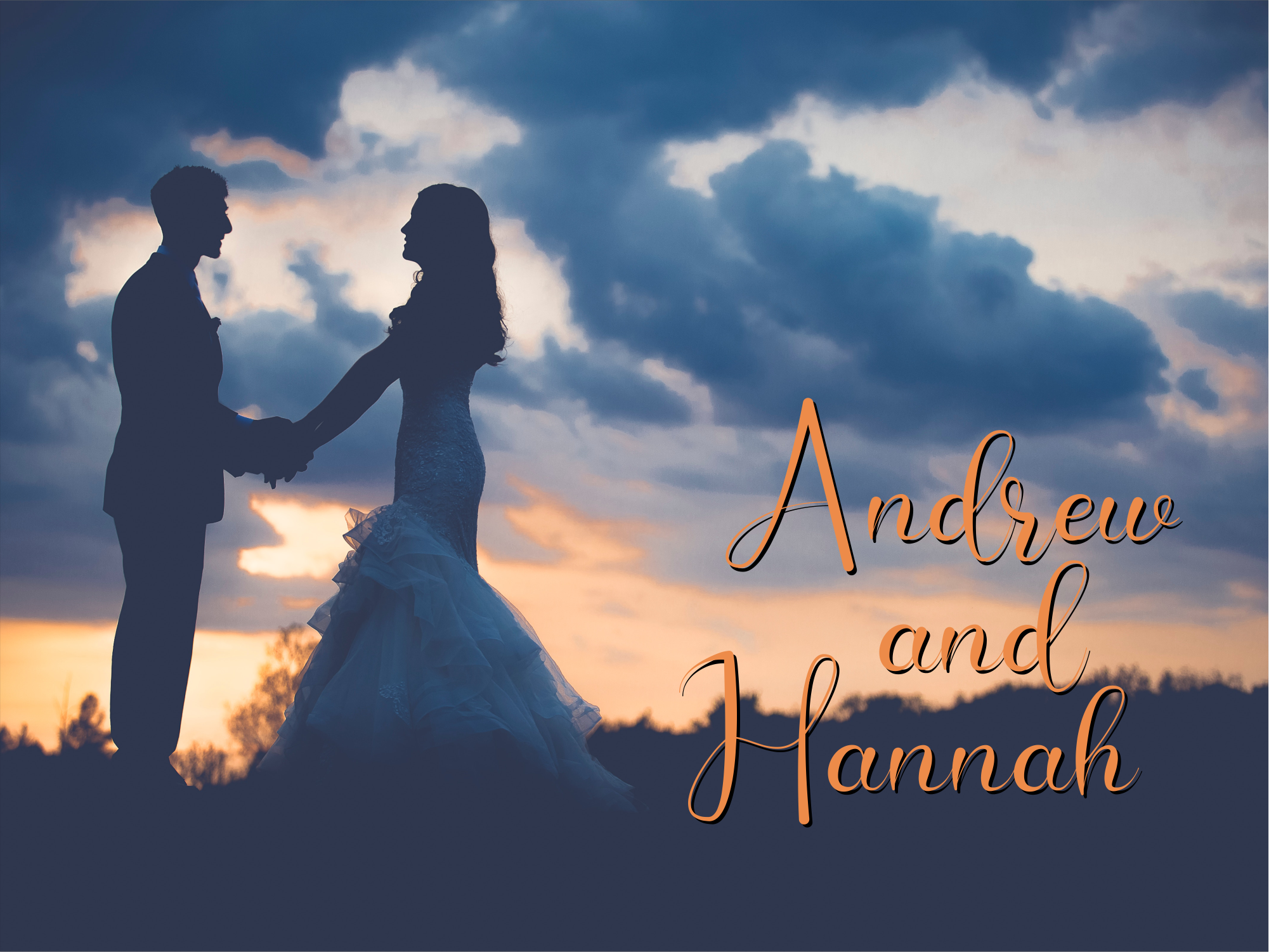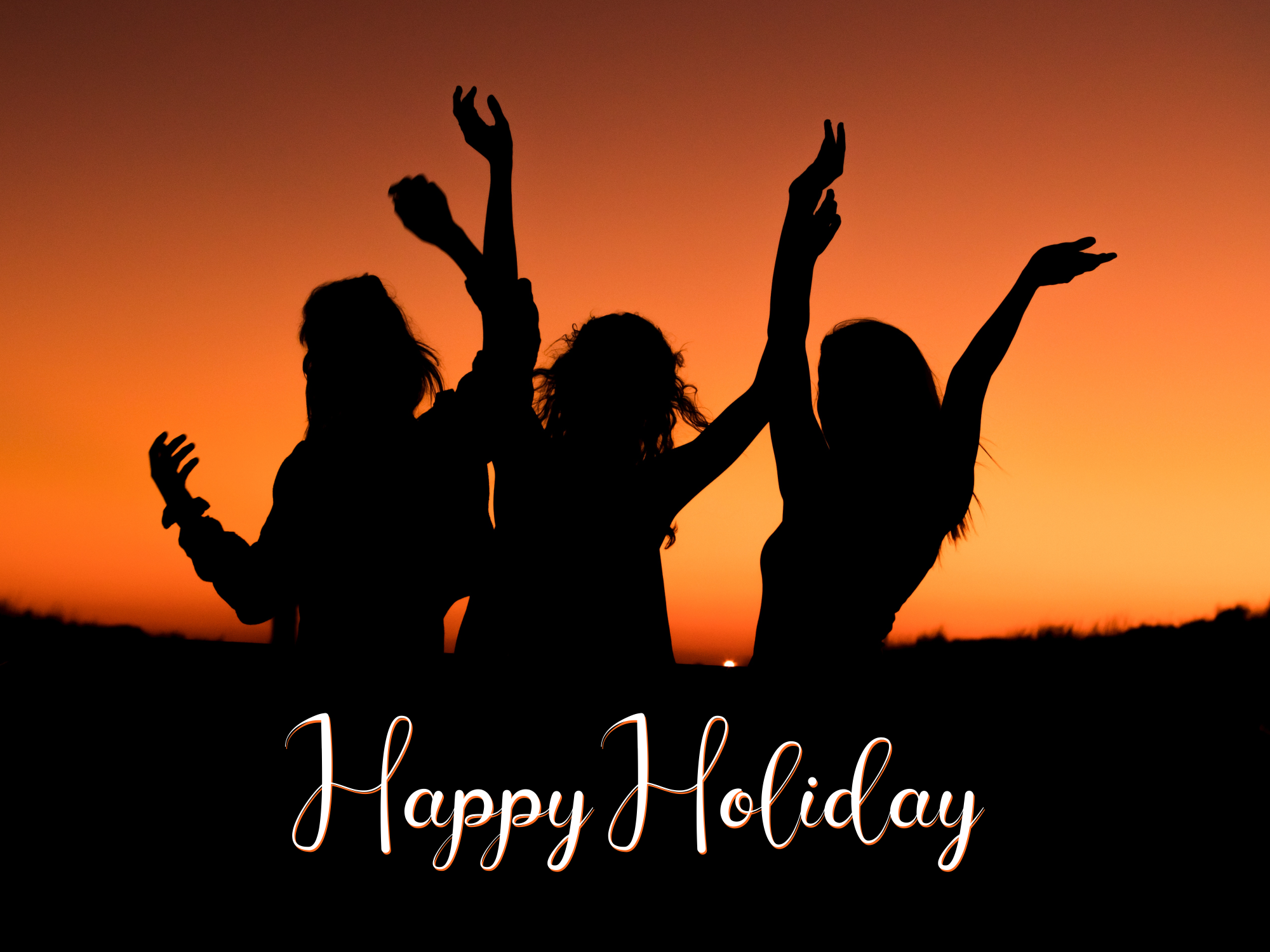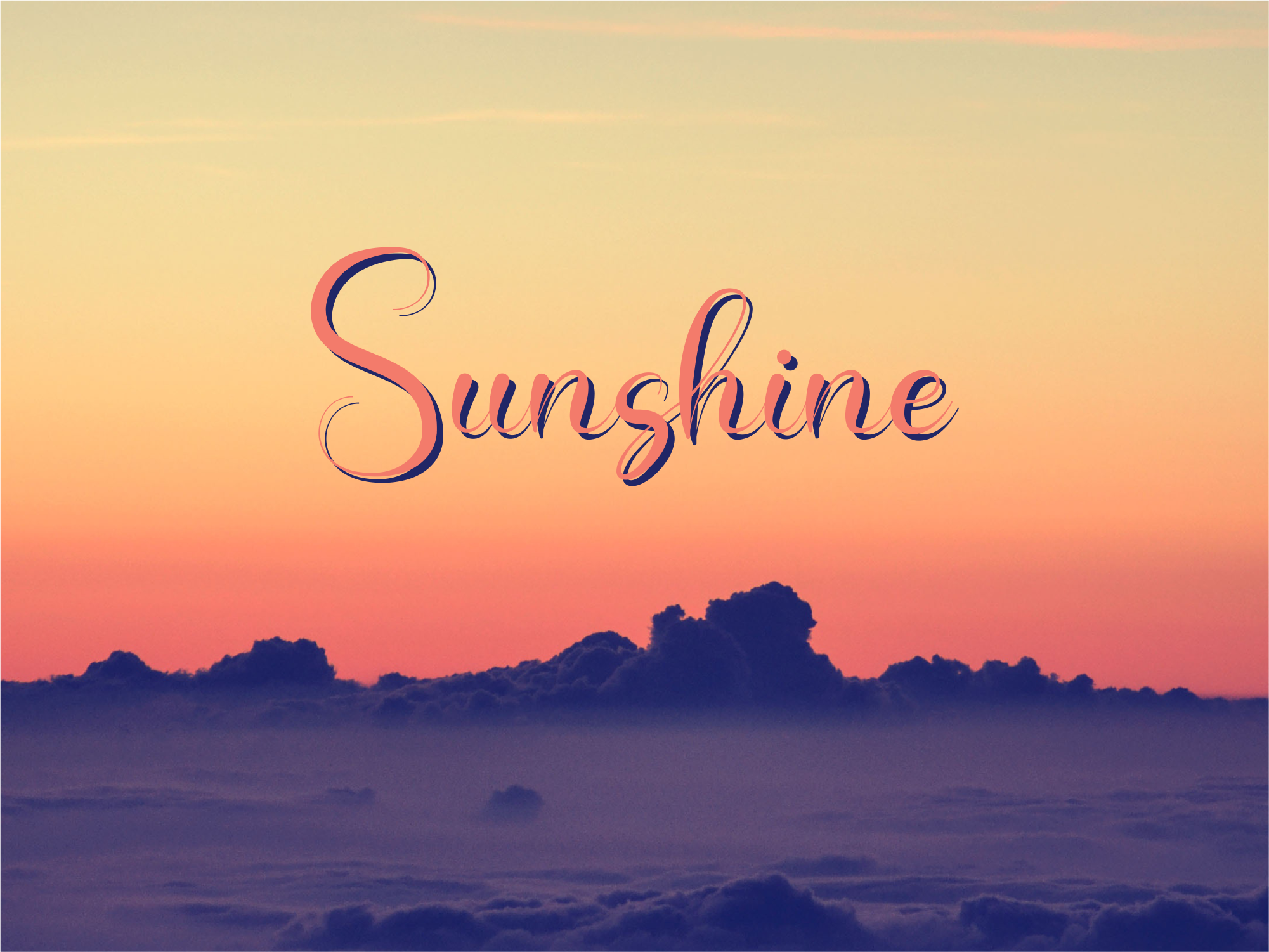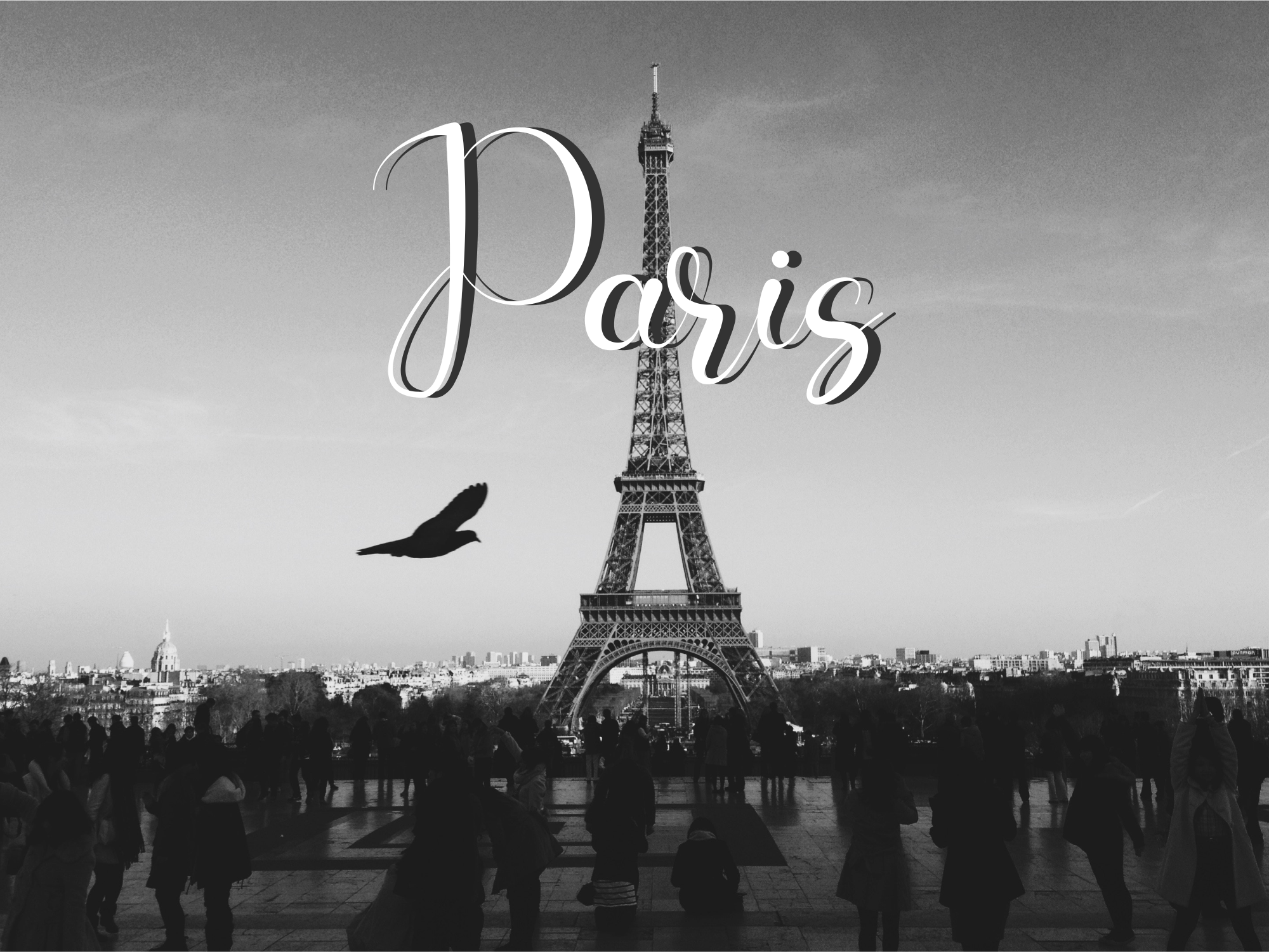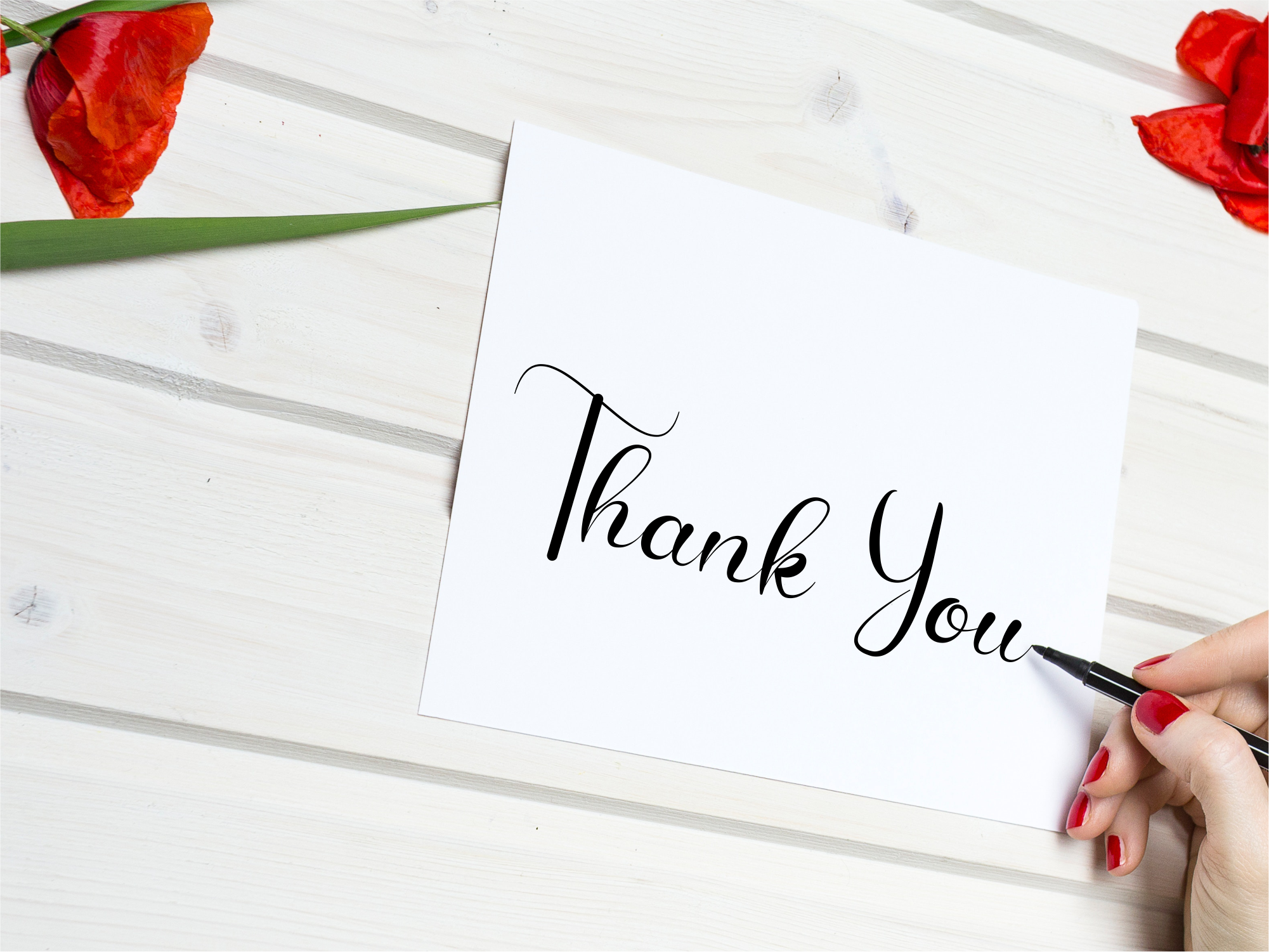
Introduction to Chelosia Font
Chelosia is a stunning script font, handwritten to give your designs an approachable yet romantic sensibility.
This font is beautiful and calligraphic, with legibility that makes it useful in a wide range of creative projects .
Key Features of Chelosia Font
Why Choose Chelosia Font?